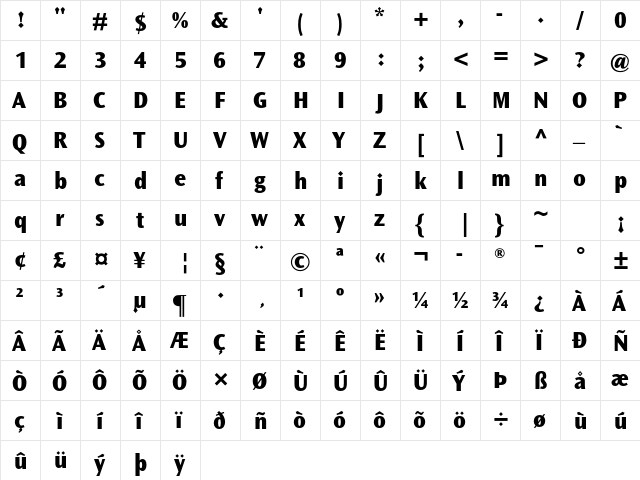
Ocean Sans Std ExtraBold Font Preview
Ocean Sans Std ExtraBold
| Designer | Chong Wah |
Design Context for Ocean Sans Std Typeface
Ocean Sans Std is a composed and adaptable typeface that performs quietly and consistently across a wide range of design contexts. Its bold stroke weight gives it real presence on the page.